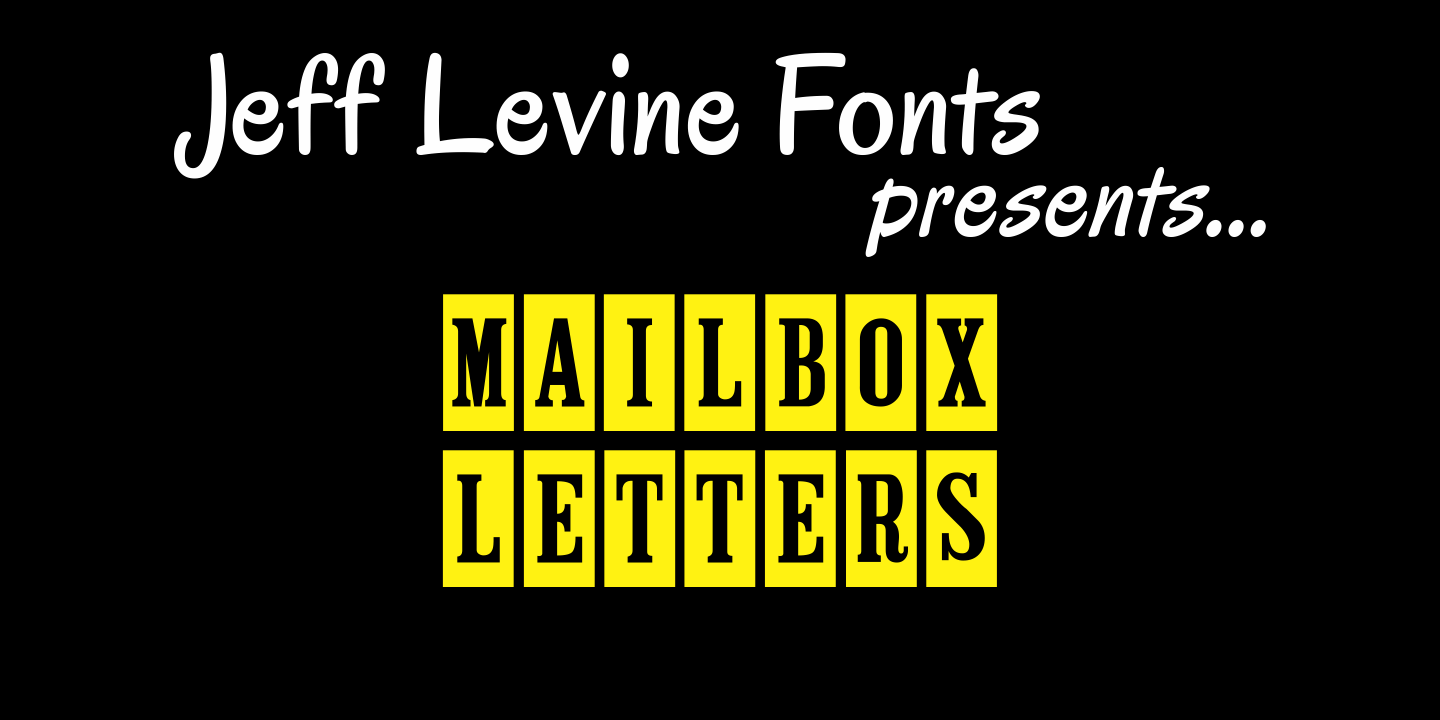
Mailbox Letters
Many items we use in our day-to-day lives offer wonderful source material for font designs. Mailbox Letters JNL was inspired by a set of self-stick adhesive letters used on mailboxes, doors and other areas of identification at home or in business.
Each letter, number and punctuation mark is centered on a black rectangle - just as the actual model for this font. Use it as spaced, or hand set it tighter to form a ribbon with white-on-black text. To provide continuity for the ribbon effect, a blank rectangle is provided on the vertical bar key (the shift position of the backslash key). Limited character set.